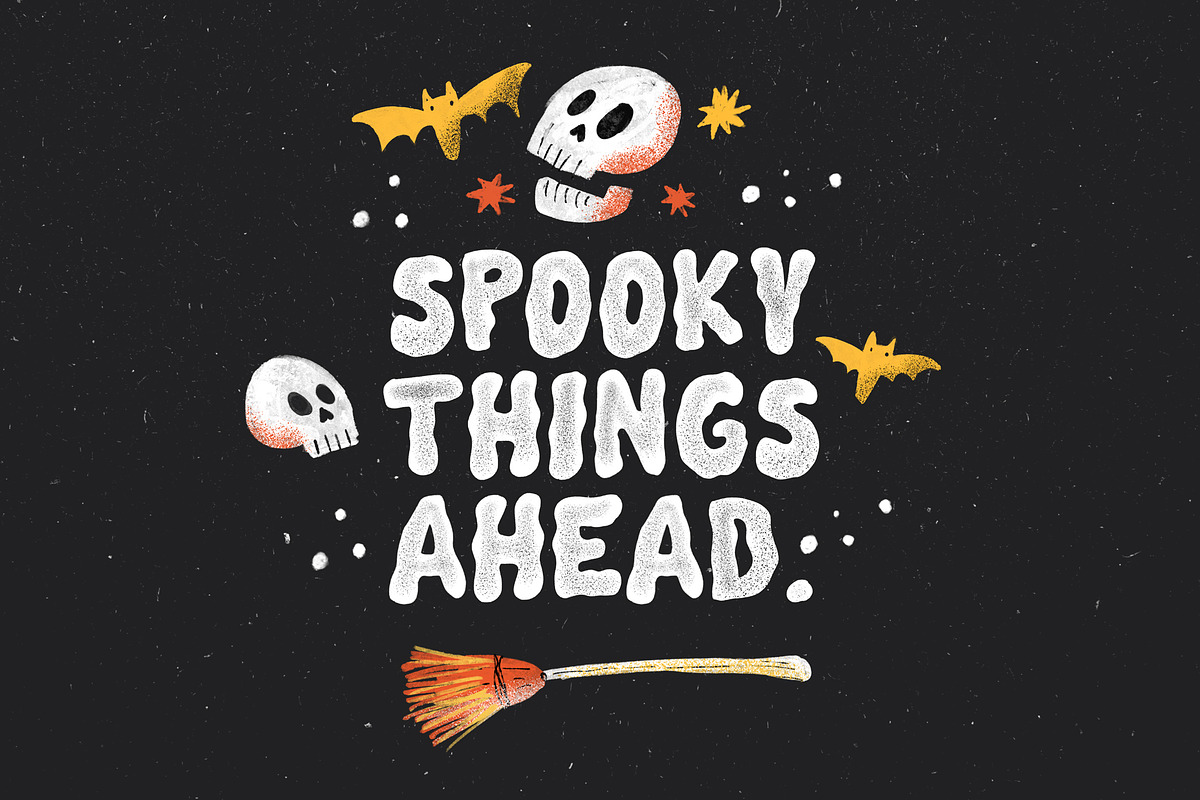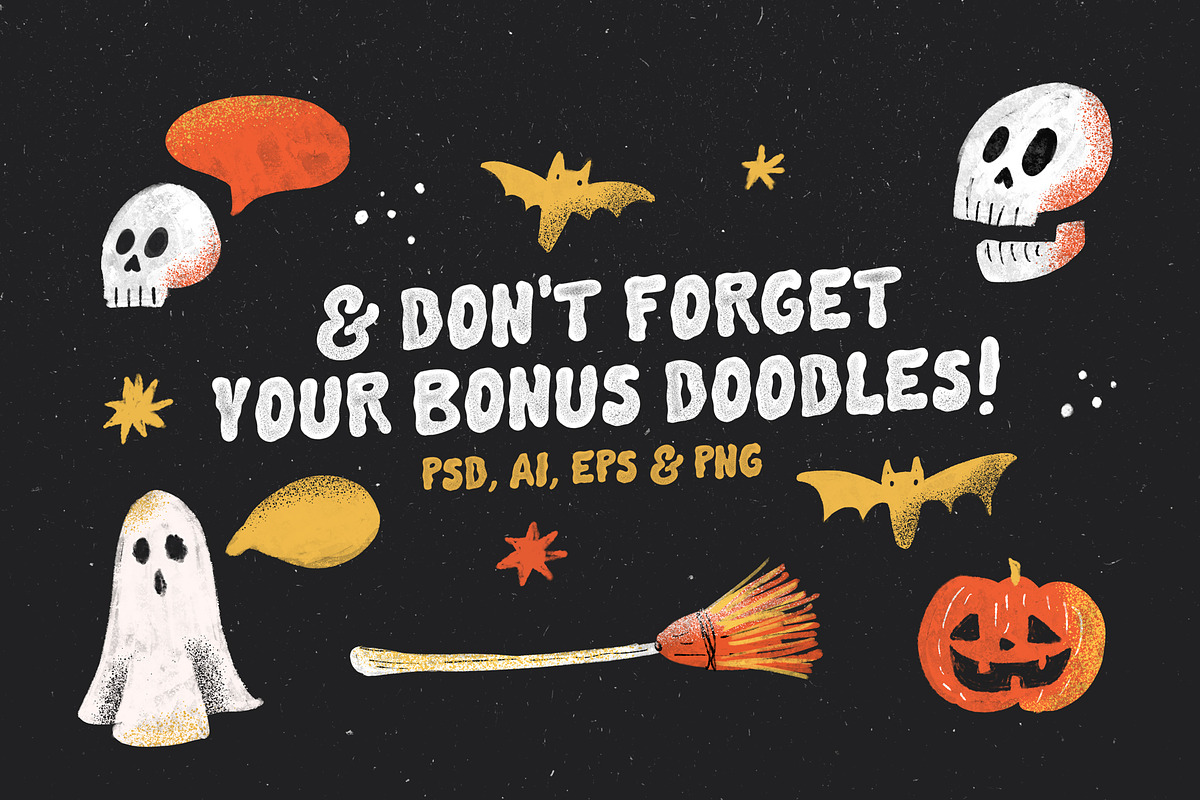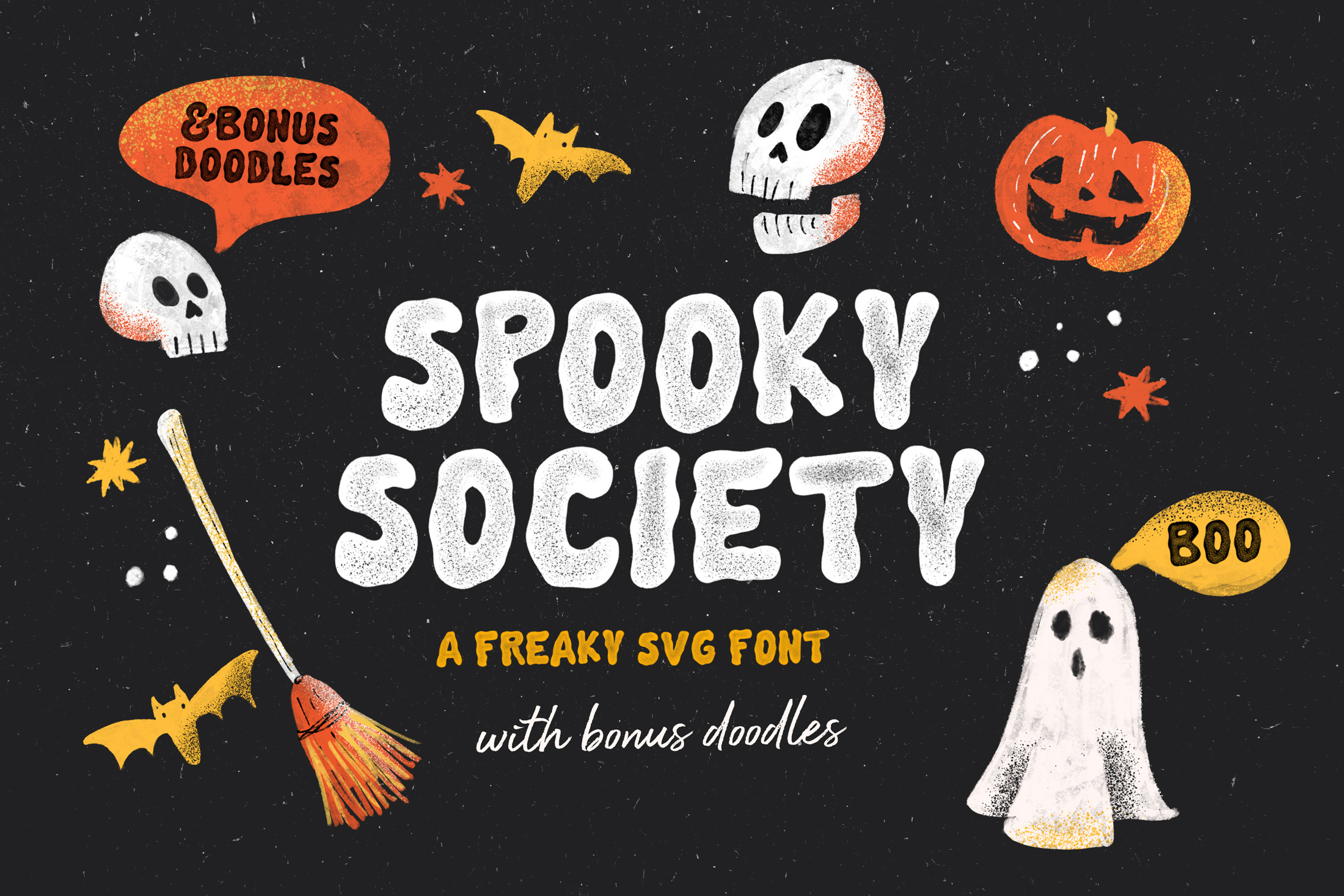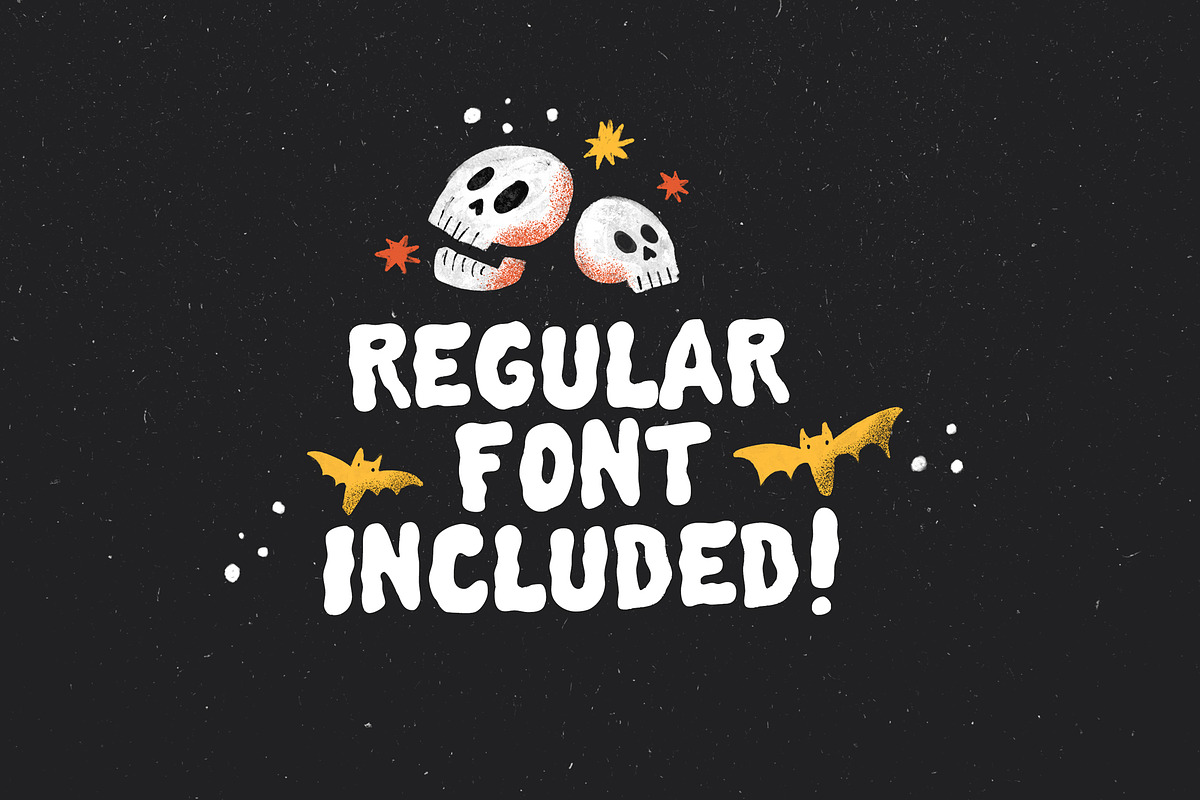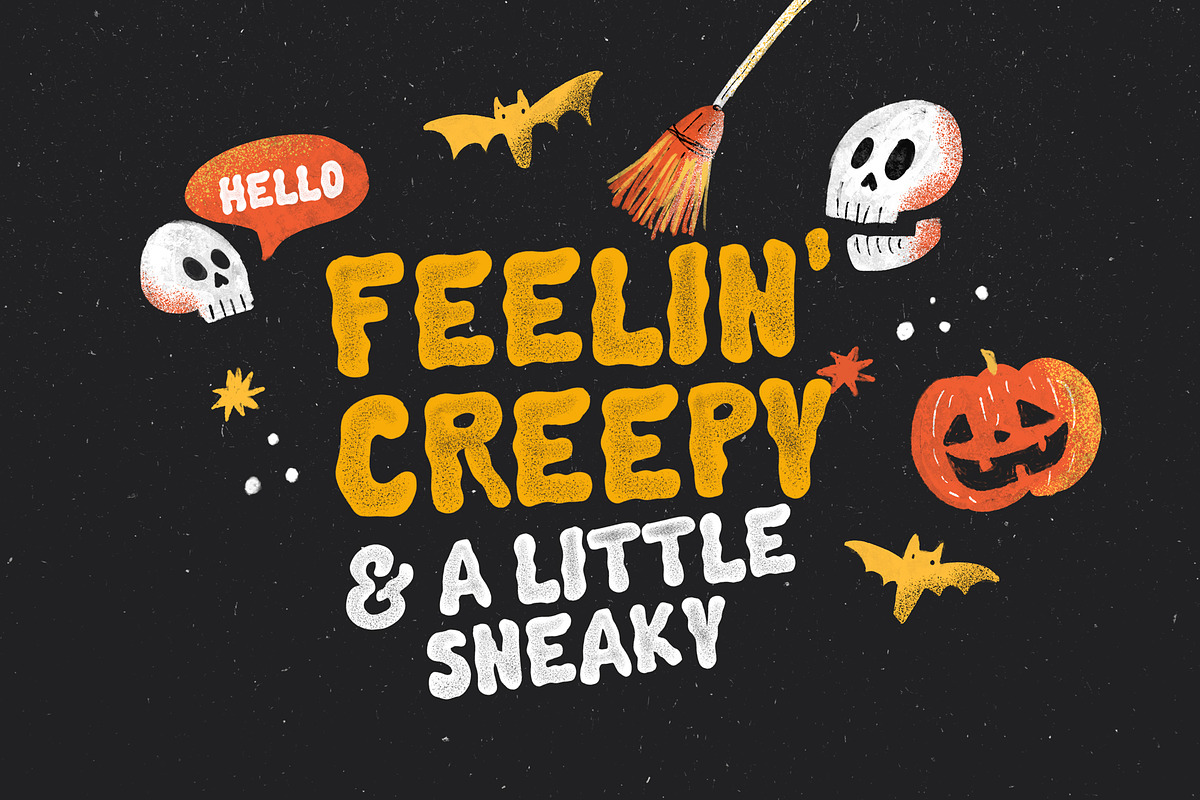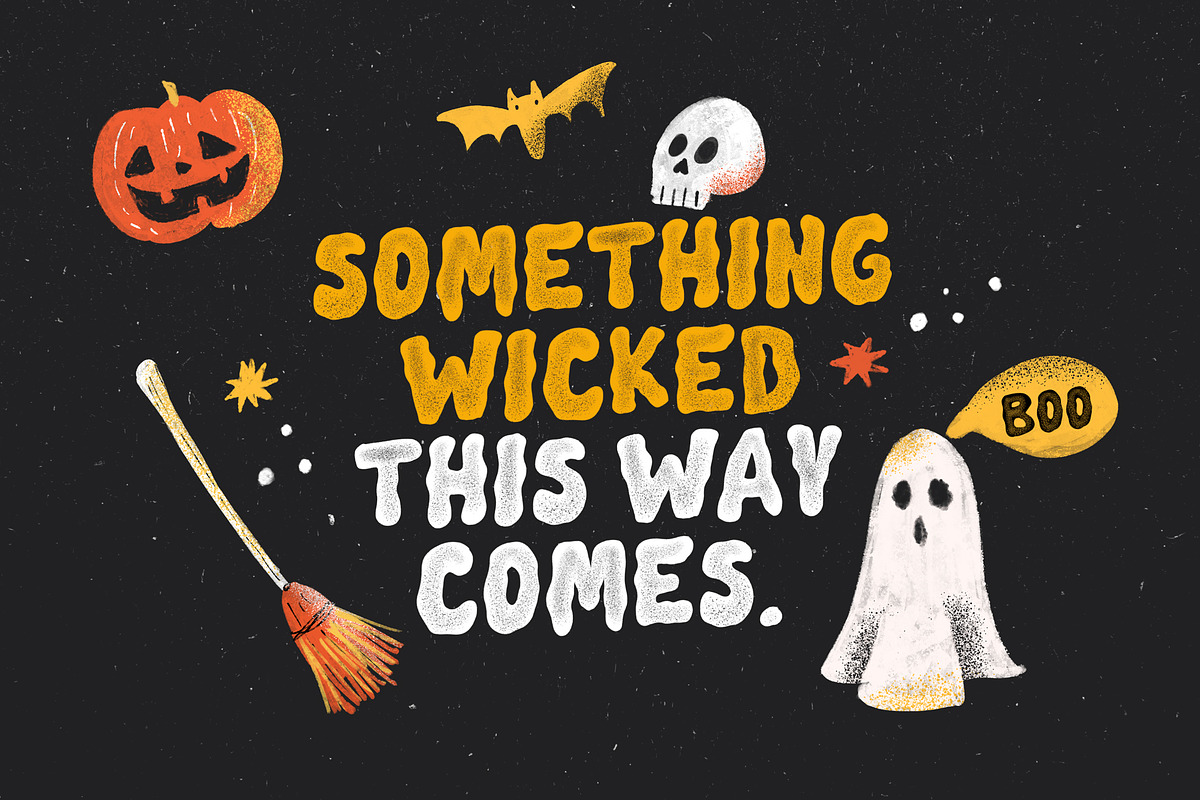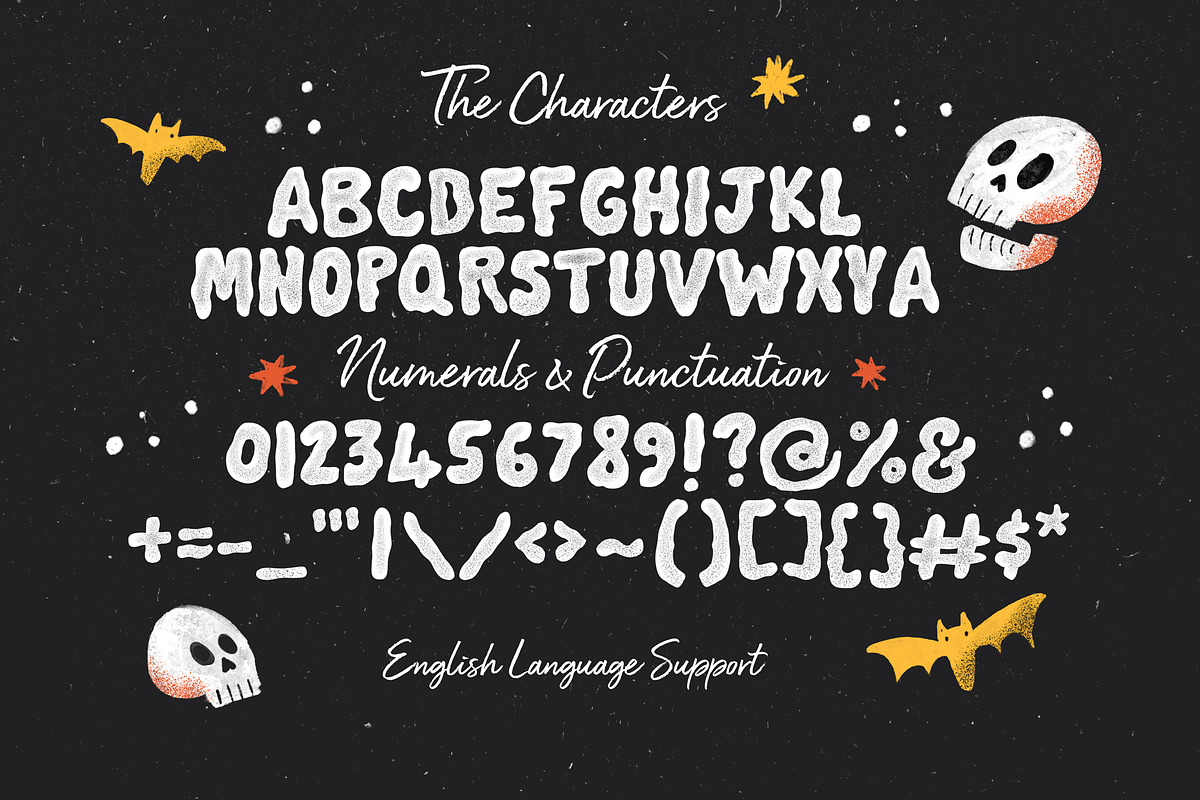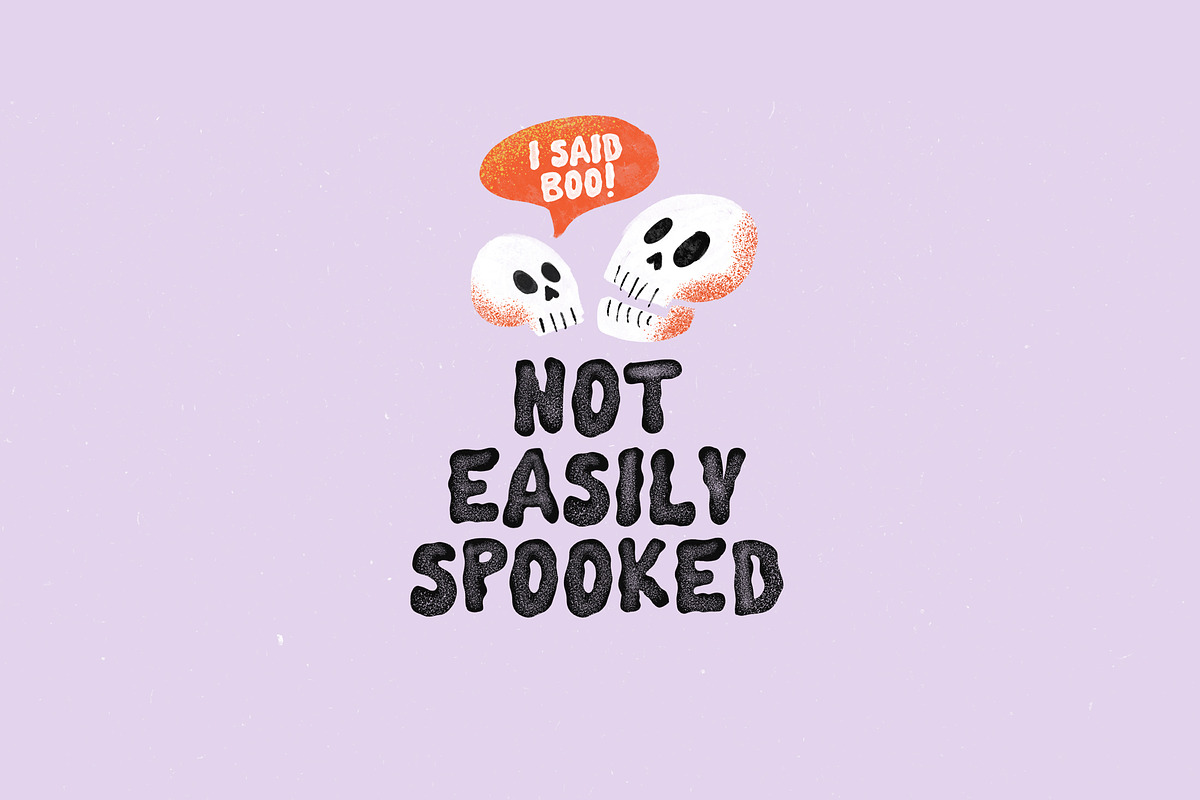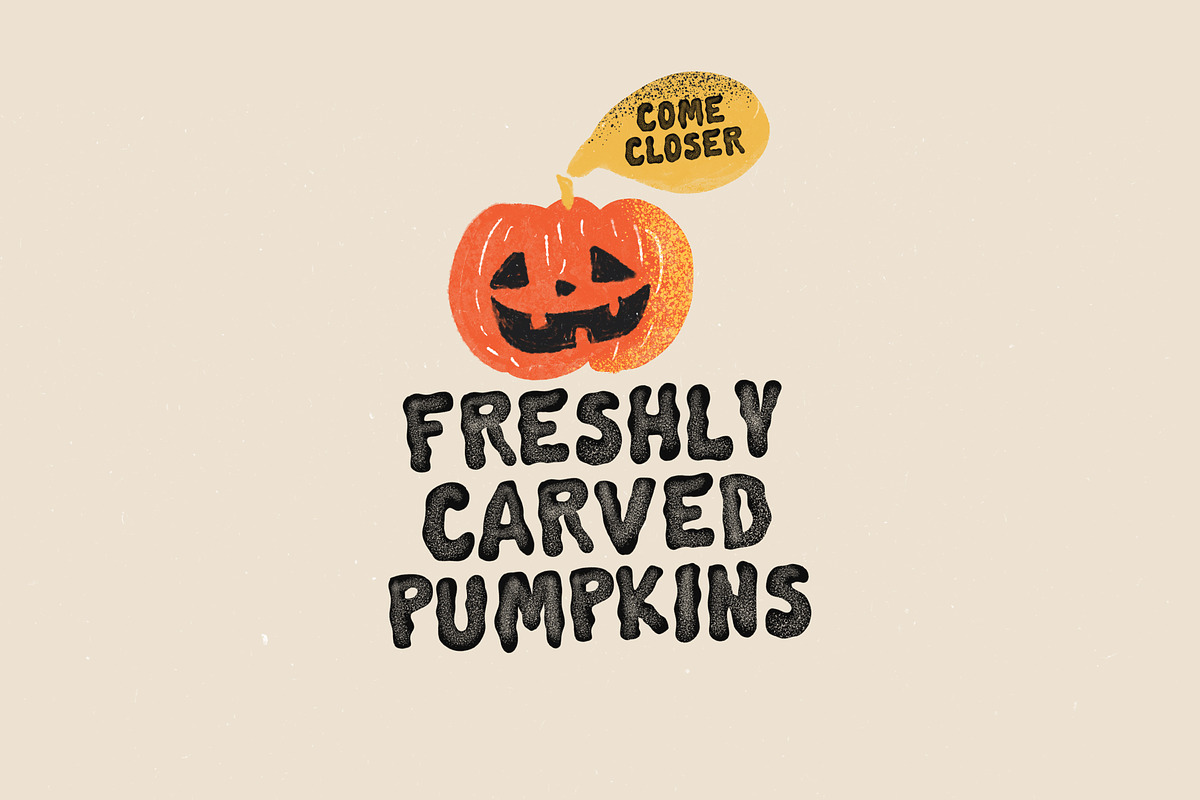
Spooky Society SVG Font
Just in time for your halloweeny projects hopefully :)
Say hello to Spooky Society! A ghoulish, and fun all caps Bitmap SVG font with built-in speckly texture. A Regular Solid version of the font is also included for you. The doodles used in these preview have been included for you free :)